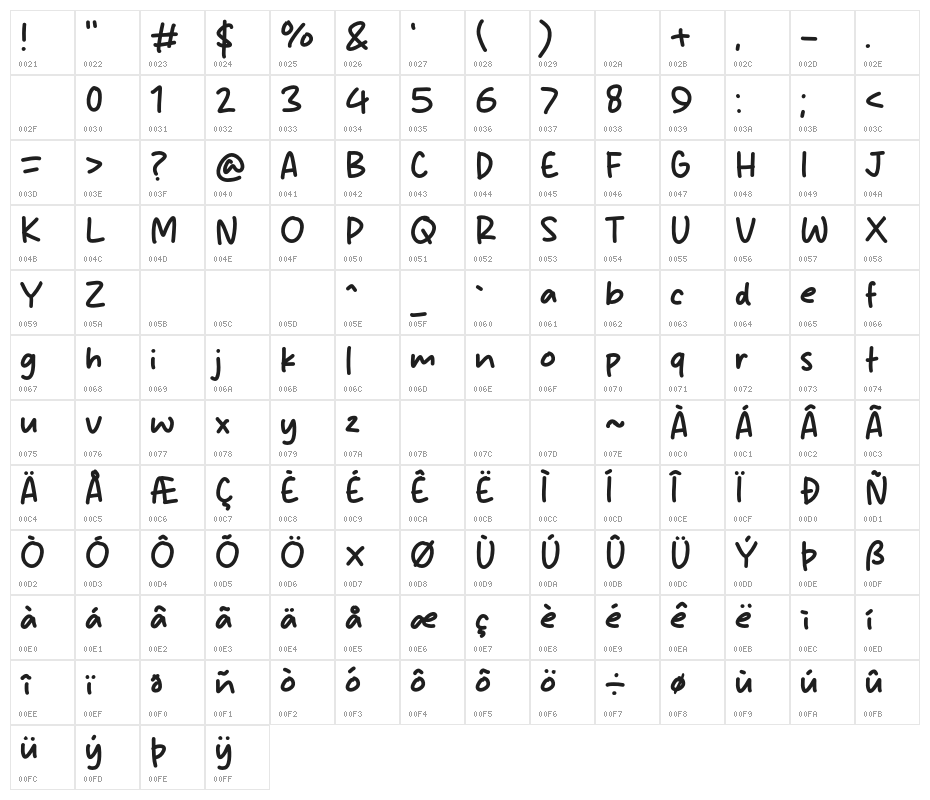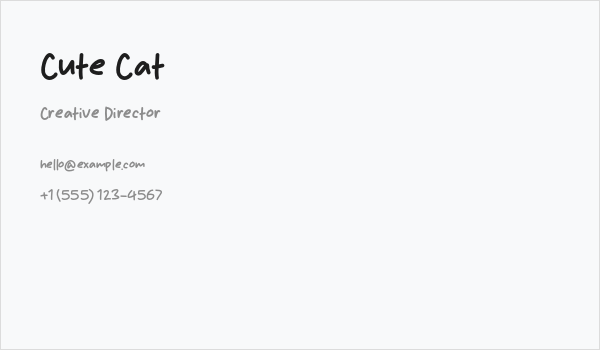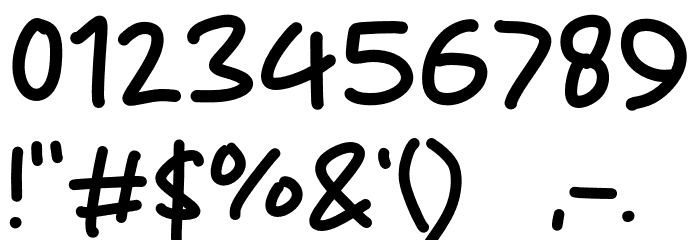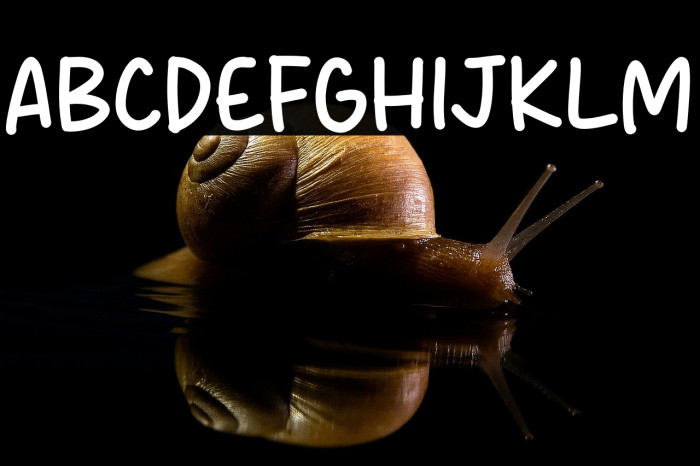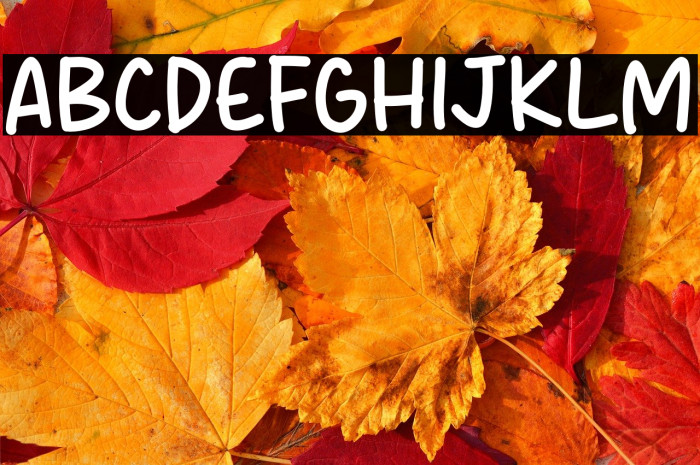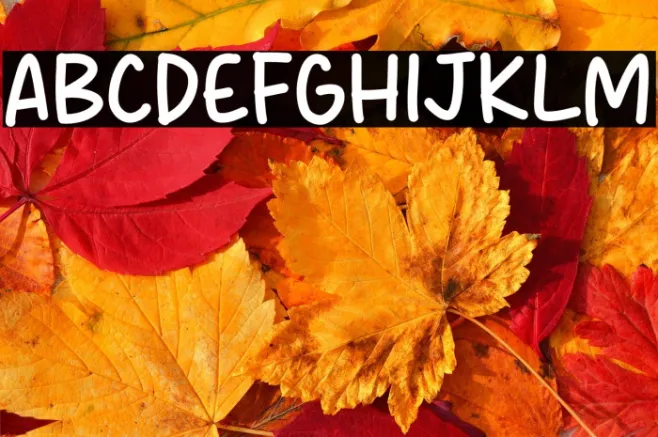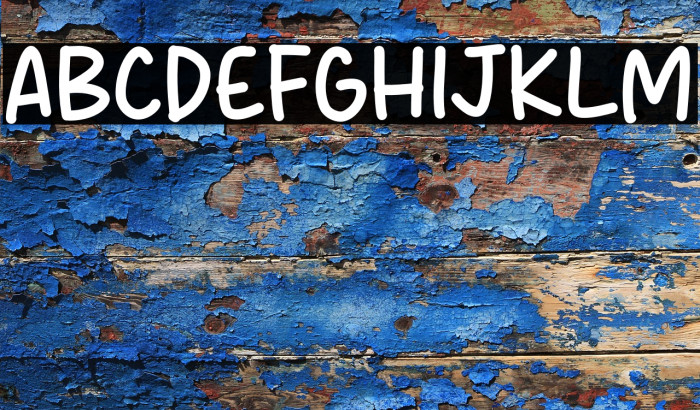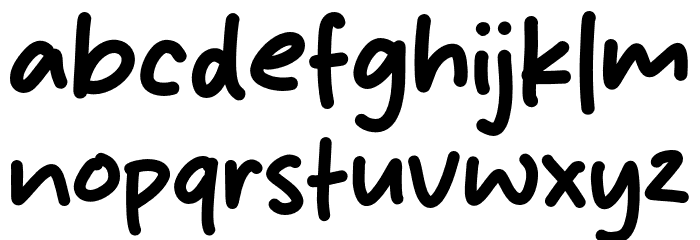
Cute Cat Font
Cute Cat Description
This font exudes a playful and casual vibe, characterized by its rounded and slightly irregular letterforms that mimic a handwritten style. The strokes are consistent in width, giving it a uniform appearance while maintaining a friendly and approachable feel. The letters are well-spaced, ensuring readability, and the overall design is simple yet effective, making it suitable for informal and creative projects. The numerals and special characters follow the same style, ensuring consistency across all text elements.
| Use Case | Headlines, Informal text, Creative projects |
| Proposed Projects | Ideal for children's books, greeting cards, casual branding, and social media graphics. |